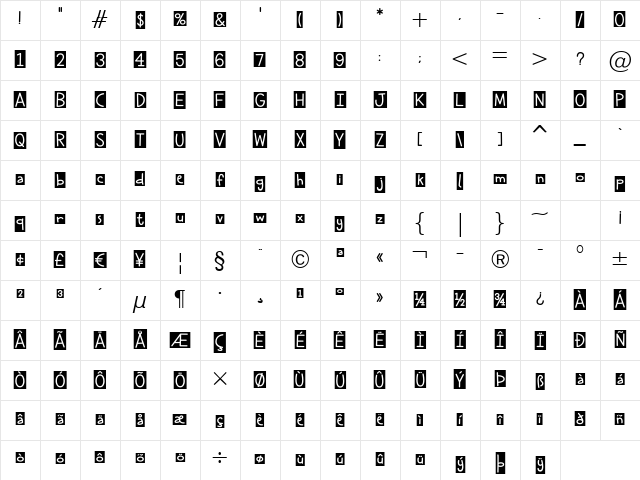
Complete Cheddar Salad BTN Cameo SqRev Regular glyph index. Displaying only characters natively supported by Cheddar Salad BTN Cameo SqRev Regular font.
Cheddar Salad BTN Cameo SqRev is a composed and adaptable typeface that performs quietly and consistently across a wide range of design contexts.